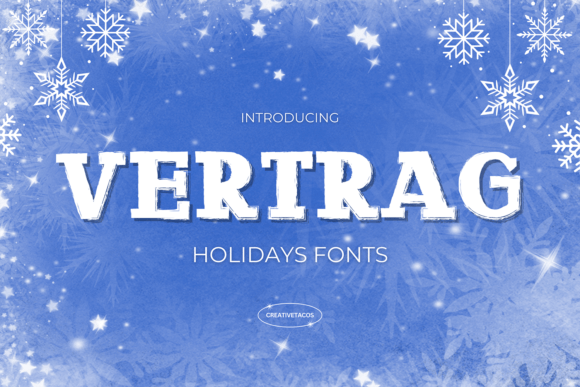
Prepare yourself to be mesmerized by Vertrag Font, the captivating display font that will transform your creative projects into visual masterpieces. This modern and stylish bold brush display font boasts a powerful vibe that instantly commands attention, making it the perfect choice for creating eye-catching holiday designs.
With its full complement of uppercase and lowercase characters, numbers, punctuation, and symbols, Vertrag Font offers unmatched versatility. It effortlessly adapts to a wide range of creative endeavors, allowing you to express your individuality and creativity like never before. Whether you're designing invitations, packaging, slideshows, logos, headlines, lettering, posters, or branding, Vertrag Font has got you covered.
Immerse yourself in the rustic charm of Vertrag Font, a font that exudes a sense of warmth and nostalgia. Its bold strokes and playful curves add a touch of whimsy to any design, making it ideal for creating inspirational quotes, headlines, magazine layouts, website designs, and advertising campaigns.
Imagine the possibilities as you unleash the full potential of Vertrag Font. Its captivating presence will elevate your designs to new heights, leaving a lasting impression on your audience. Let Vertrag Font be your creative companion, guiding you towards artistic triumphs and unforgettable designs.